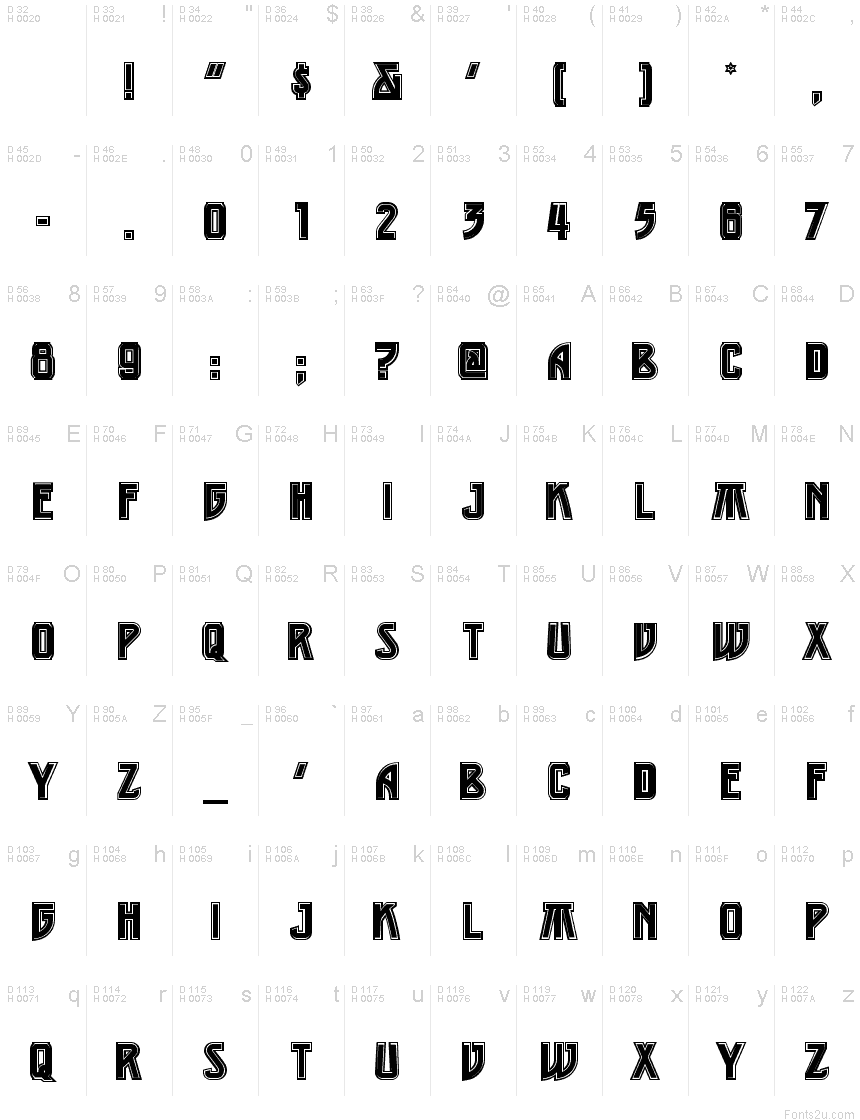
MiddleEarthNF Medium
Middle Earth NF font by Nick Curtis is a free display font with a retro, geometric outline style. It uses tall, squared letterforms with double-line construction and narrow inner cuts that give the alphabet a carved, poster-like feel.
Middle Earth NF works well for fantasy titles, game logos, book covers, event posters, and themed banners where a strong decorative line treatment helps set the tone. This free font also suits emblem text, merchandise graphics, and header accents when you want lettering that feels structured and a little ancient without becoming ornate.